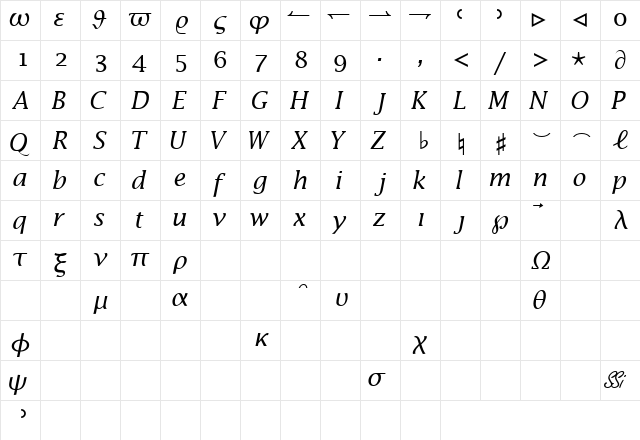
MachadoMathAlternateExtSSK Regular
Design Context for MachadoMathAlternateExtSSK Typeface
MachadoMathAlternateExtSSK is a composed and adaptable typeface that performs quietly and consistently across a wide range of design contexts.